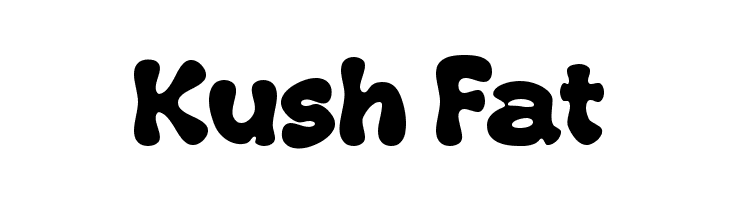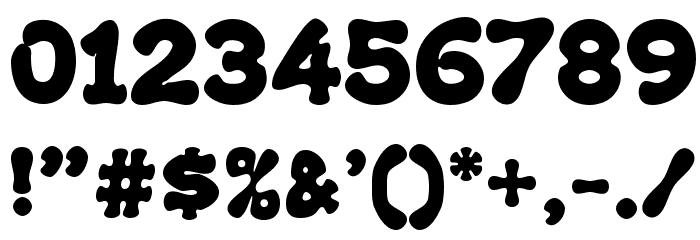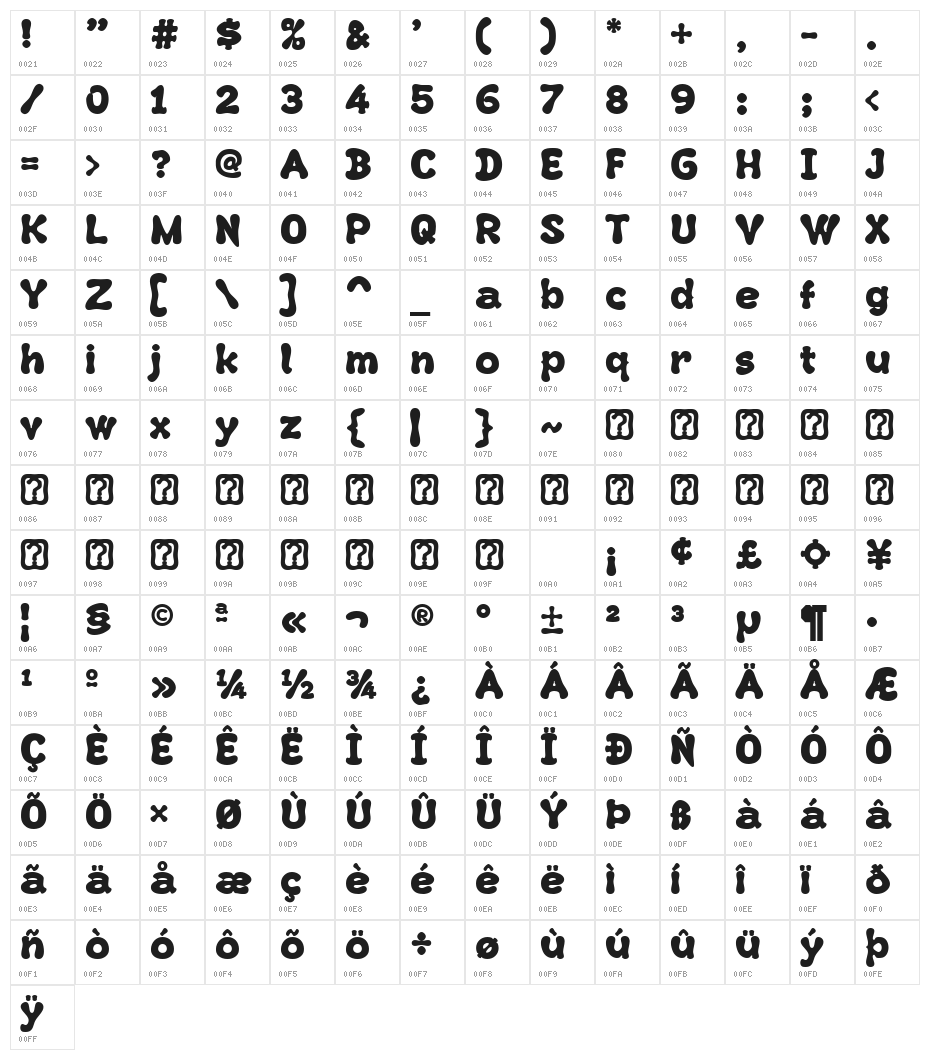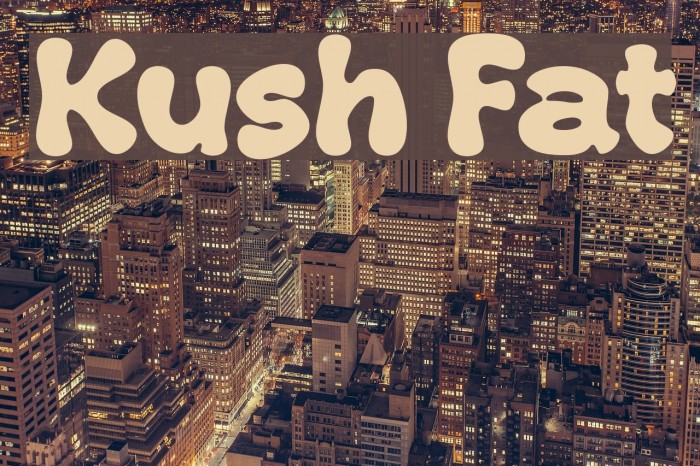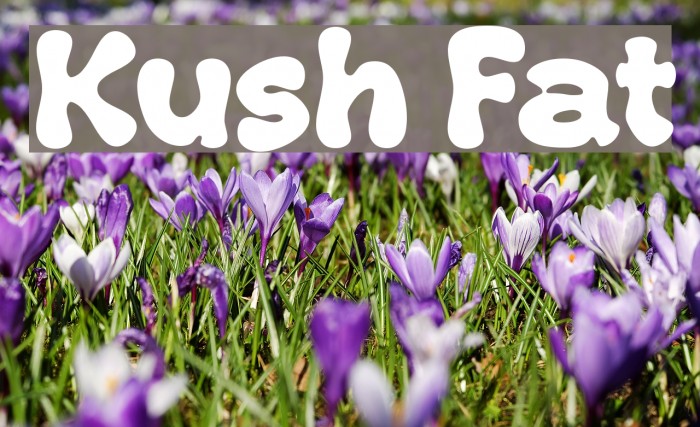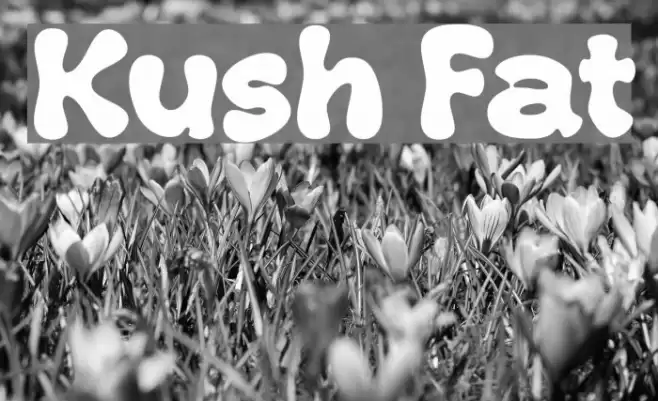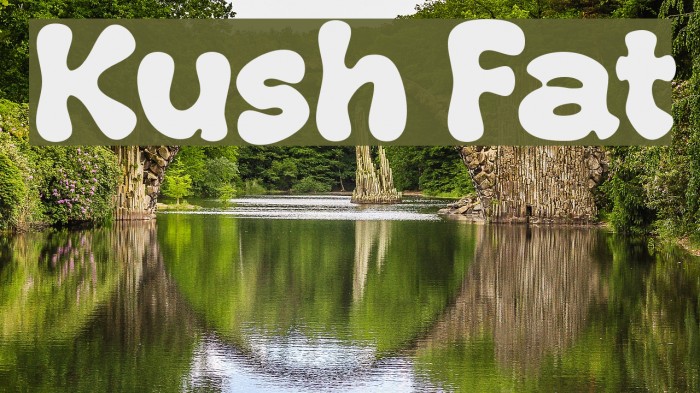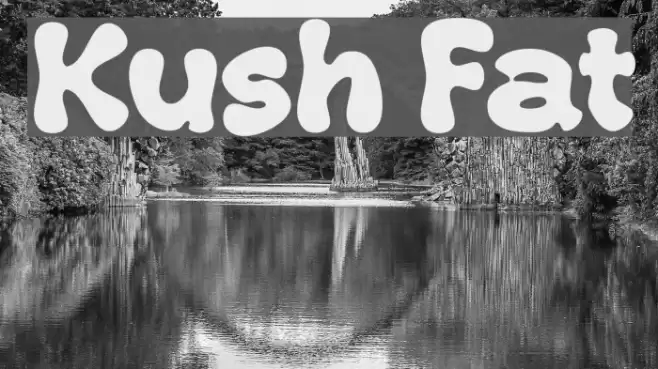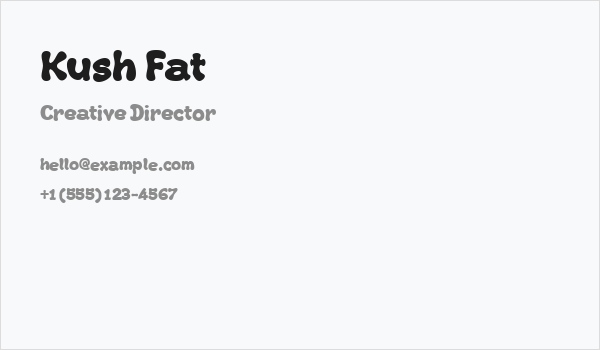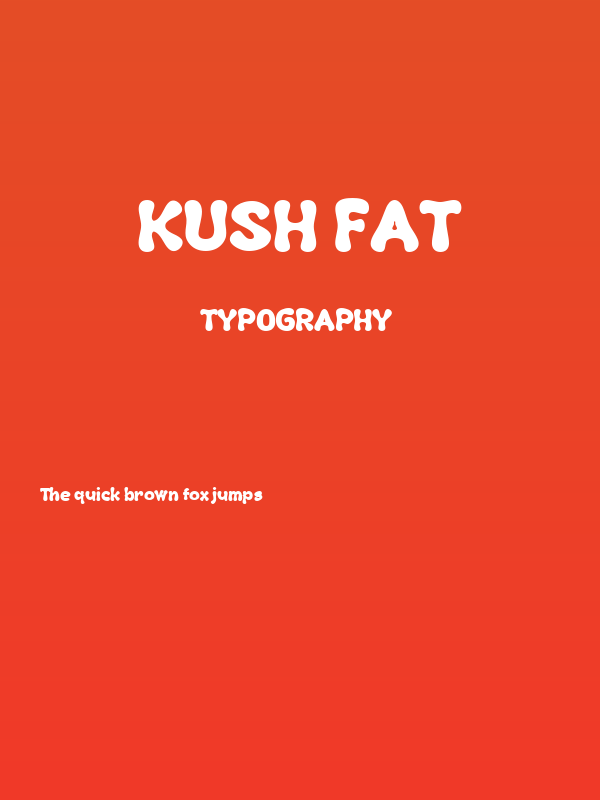
Kush Fat Font
Kush Fat Description
This font features a bold, playful style with rounded, bubbly characters that convey a sense of fun and whimsy. The letters are thick and substantial, giving them a strong presence on the page. Each character is uniquely designed with a slightly irregular shape, adding to the font's informal and lively appearance. The font maintains consistent thickness throughout, with minimal contrast between strokes, emphasizing its bold and friendly nature. The overall look is reminiscent of hand-drawn lettering, making it suitable for creative and casual applications.